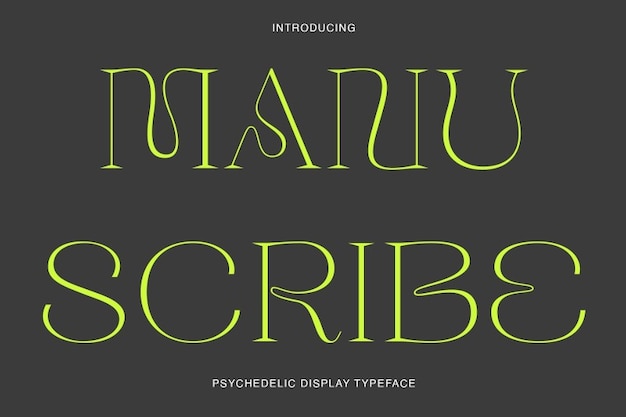
Manuscribe Font
Manuscribe font is a mesmerizing blend of modern simplicity and elegant psychedelia. Its characters form a hypnotic journey through time and style, making it ideal for projects that demand a unique, eye-catching look. Manuscribe effortlessly marries the elegance of simplicity with a touch of psychedelic charm, making your words a captivating and artistic expression of modernity.